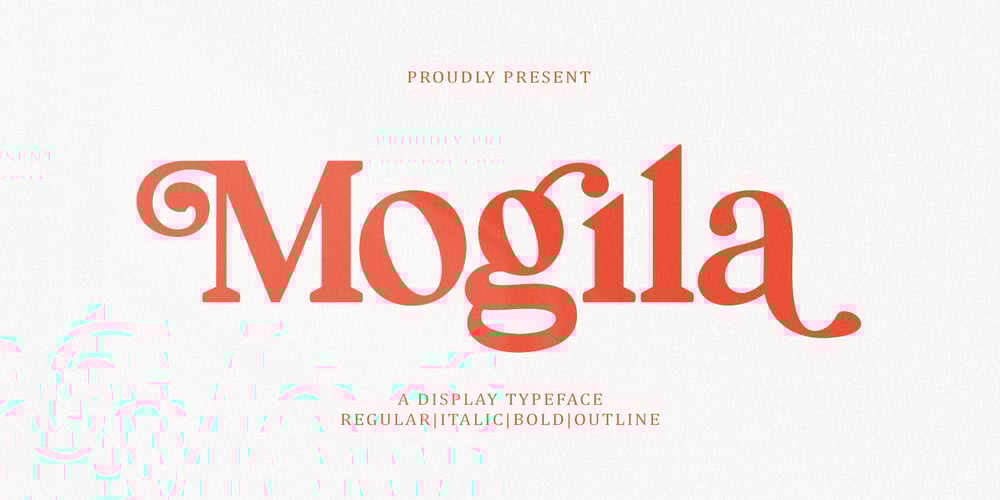
Mogila Display
Mogila Display font
Mogila Display Font Family was designed by Rizki Andika and published by Letterfreshstudio. Mogila Display contains 4 styles and family package options. Mogila is a display font with a touch of style that’s cheerful, elegant and strong. So it is suitable for use in product design and appearance, both in modern or vintage designs. OpenType feature with several alternative characters that allow you to mix and match letter pairs to suit your design. Mogila also includes 4 different styles, namely Regular,Italic, Bold and Outline which are made with different styles but still have the same characters.Mogila is included in a display font so it is very suitable for use in titles, poster products, logos, book menus, websites, books, t-shirts, posters, book covers, labels, business cards, branding, print templates and many other designs according to your needs.Mogila includes a complete set of upper and lowercase letters, as well as multi-language support, punctuation, ligatures and alternatives.Thank you very much for looking and Enjoying it!